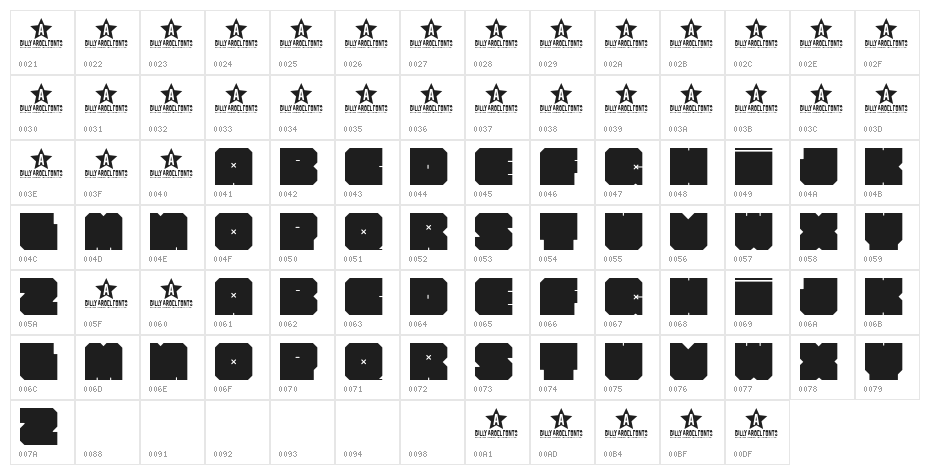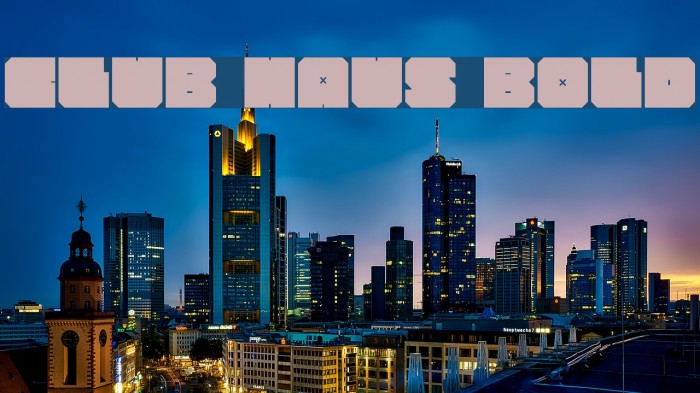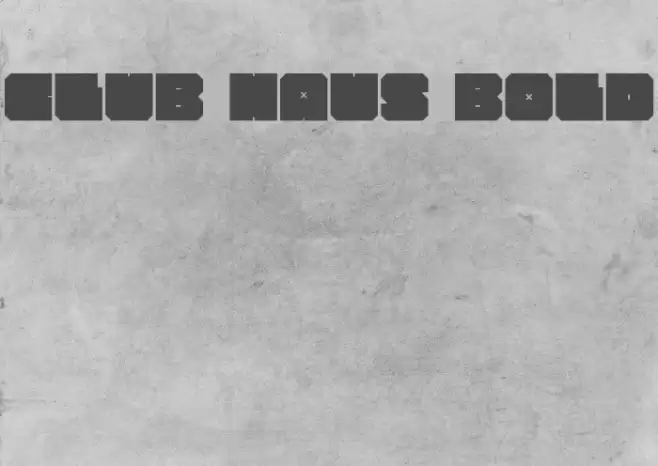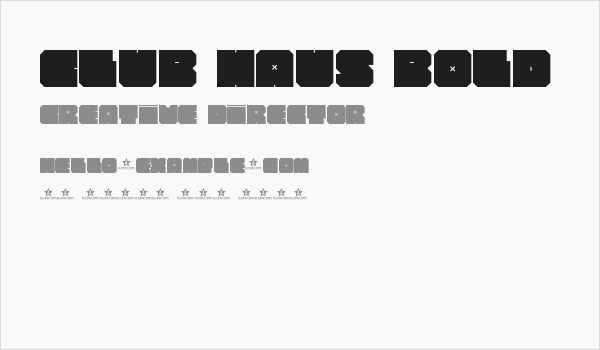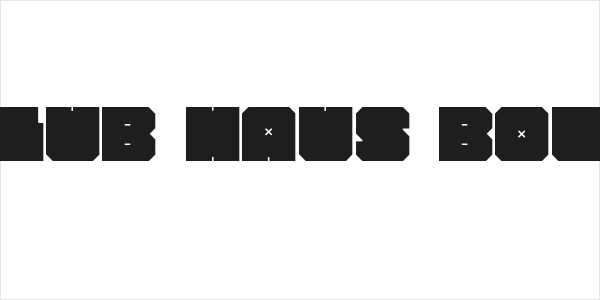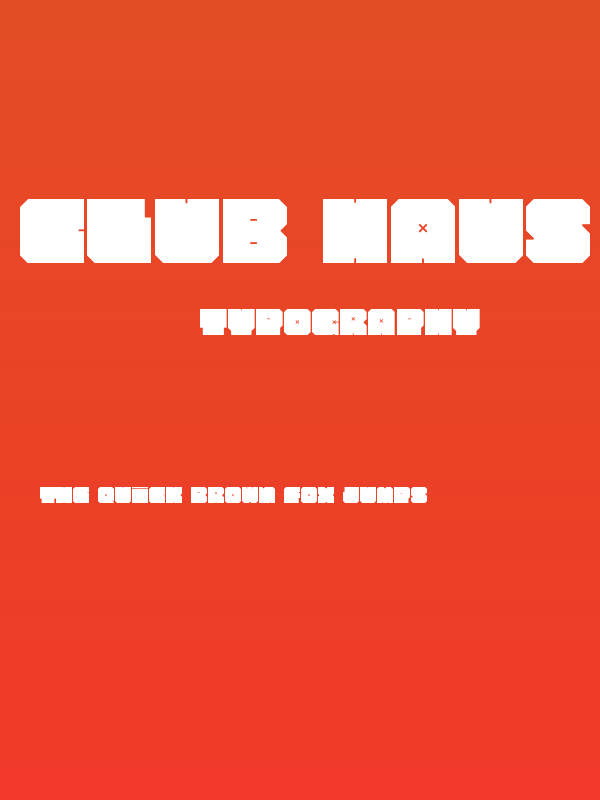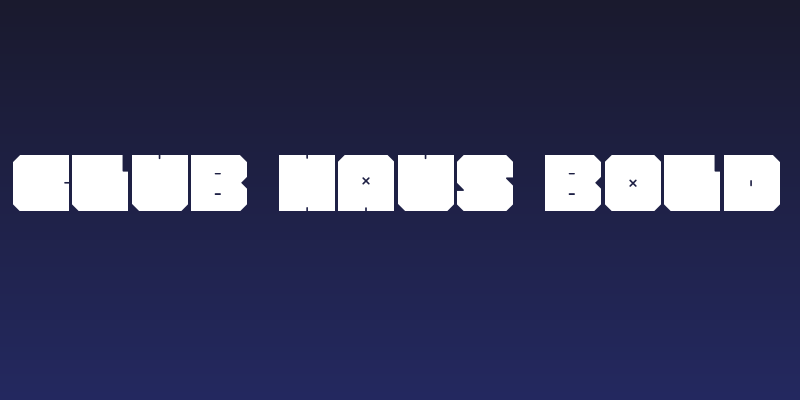
CLUB HAUS Bold Font
CLUB HAUS Bold Description
This font features a bold, geometric design with a strong, block-like appearance. Each character is crafted with sharp angles and a uniform thickness, giving it a robust and impactful presence. The uppercase letters are particularly striking, with a consistent height and width that create a cohesive look. The font's style is reminiscent of industrial or architectural design, making it ideal for projects that require a modern and assertive aesthetic. The characters are tightly spaced, enhancing the boldness and making it suitable for headlines or titles where attention is key.
| Proposed Projects | Ideal for branding, posters, and signage where a modern, impactful look is desired. |